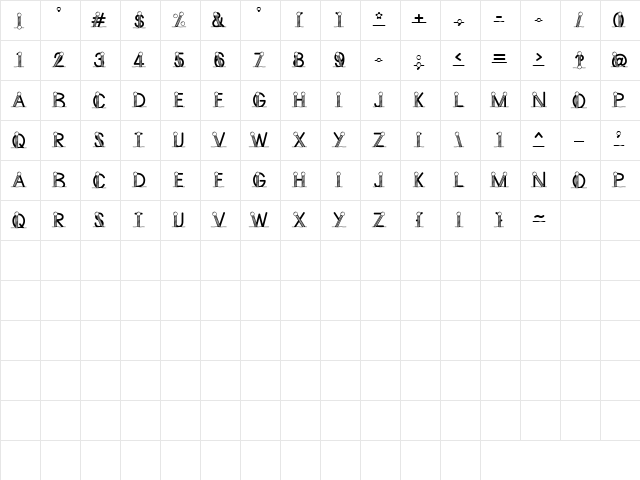
LD North Pole Regular
Design Context for LD North Pole Typeface
LD North Pole is a composed and adaptable typeface that performs quietly and consistently across a wide range of design contexts.